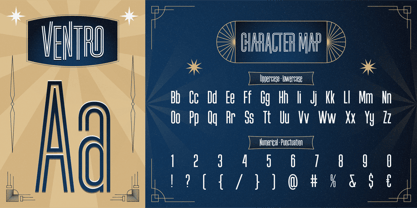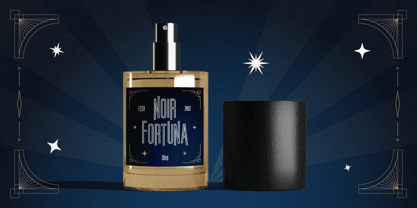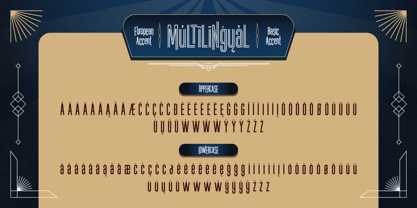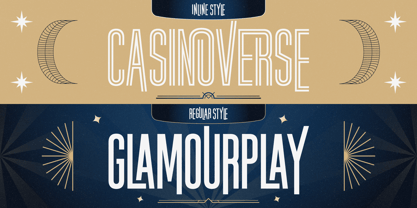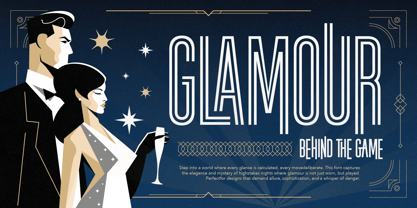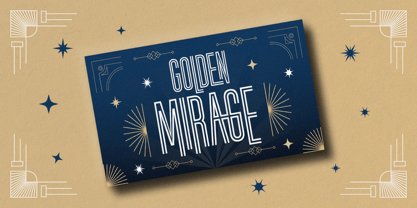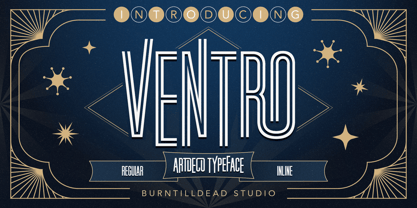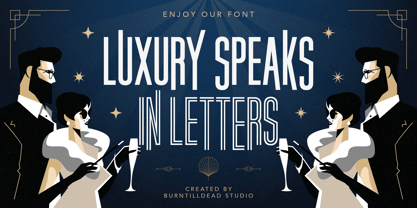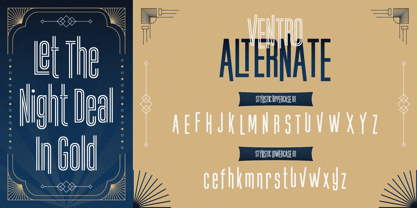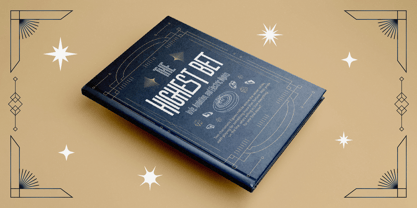
Ventro
Die Schriftfamilie Ventro wurde von Eric Kurniawan entworfen und von Burntilldead veröffentlicht. Ventro enthält 2 Stile und Familienpaketoptionen. Mehr über diese Familie
Proudly present, Ventro, an Art Deco-style font that mixes the luxury of the 1920s with a modern feel. It comes in two styles: Regular and Inline, making it perfect for designs that want to look classic but still bold. With its strong look, Ventro works great for movie titles, vintage café logos, event posters, fancy product labels, and even retro sci-fi themes.
Features:
• A - Z set (Uppercase & Lowercase)
• Number
• Punctuation
• Alternates
• Ligatures
• Multilingual